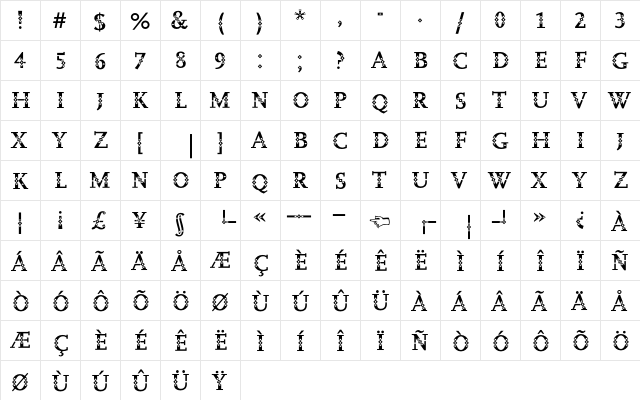
ScalaJewel Diamond Regular
Design Context for ScalaJewel Diamond Typeface
ScalaJewel Diamond is a composed and adaptable typeface that performs quietly and consistently across a wide range of design contexts.